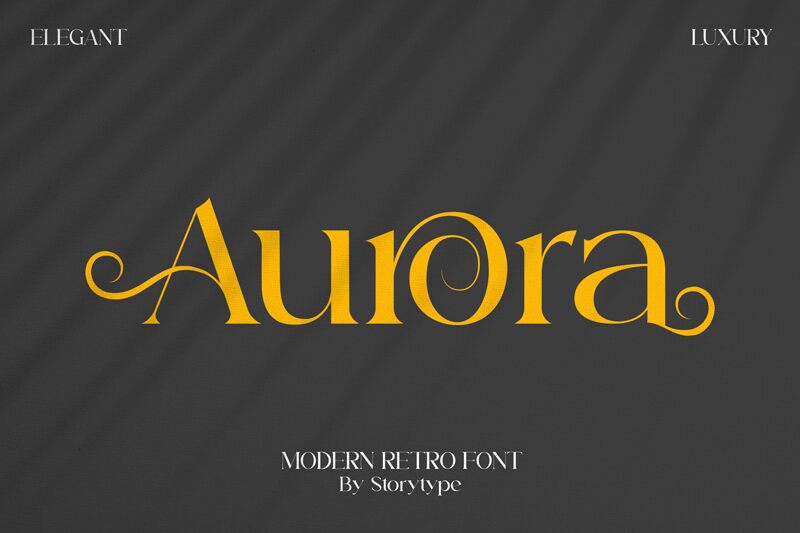
Aurora
Aurora, created by Storytype Studio, is a captivating modern serif font that effortlessly blends timeless elegance with contemporary appeal. With its clean lines and sophisticated curves, Aurora lends itself perfectly to a wide range of projects. Its versatile nature makes it suitable for both print and digital media, including editorial designs, luxury branding, book covers, and high-end websites. The semi-bold font weight adds a touch of boldness and confidence to headlines and titles, while the moderate width ensures legibility without sacrificing style. Let Aurora elevate your next project with its refined charm and versatility.